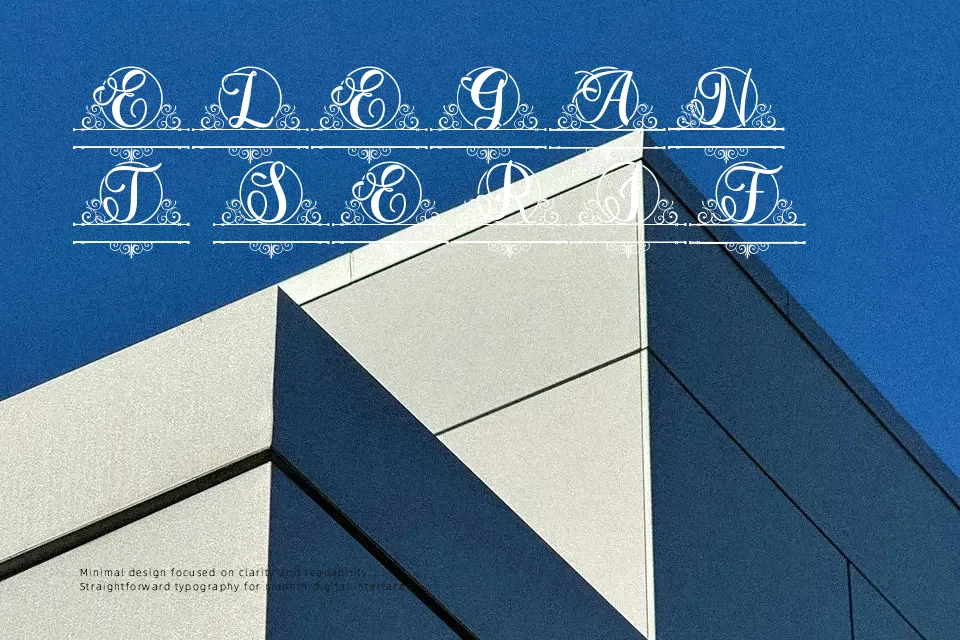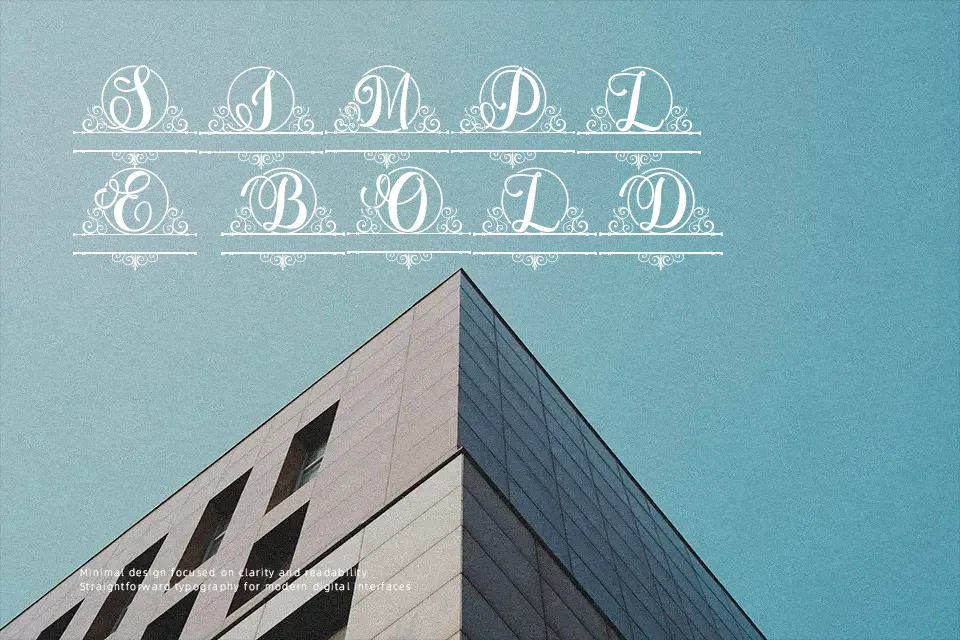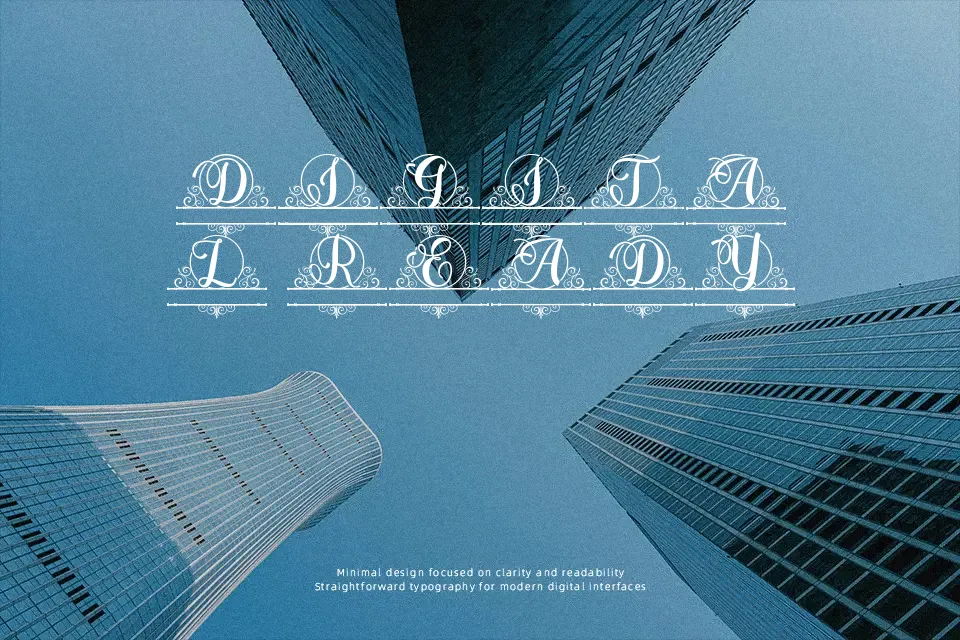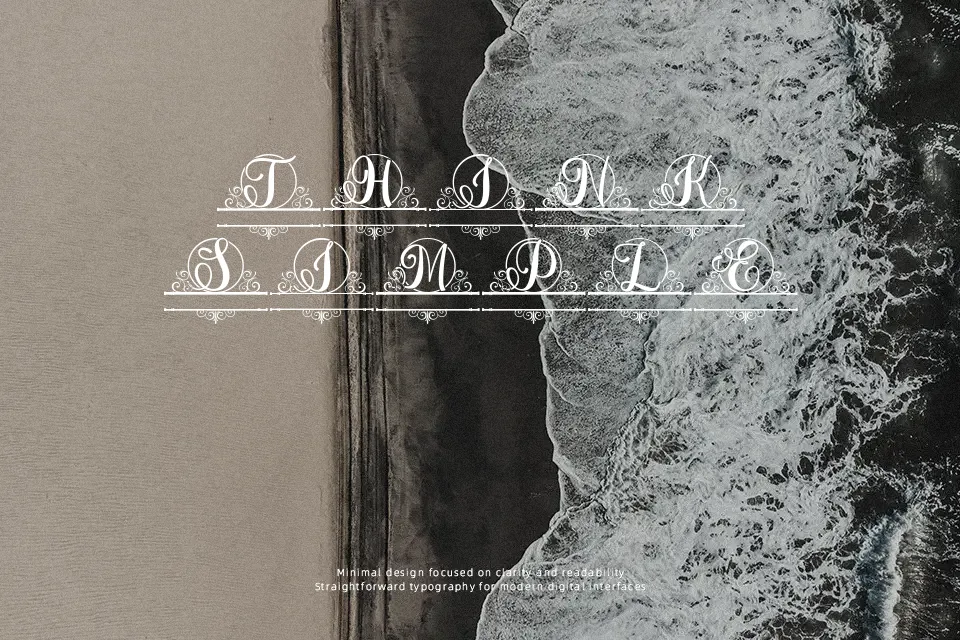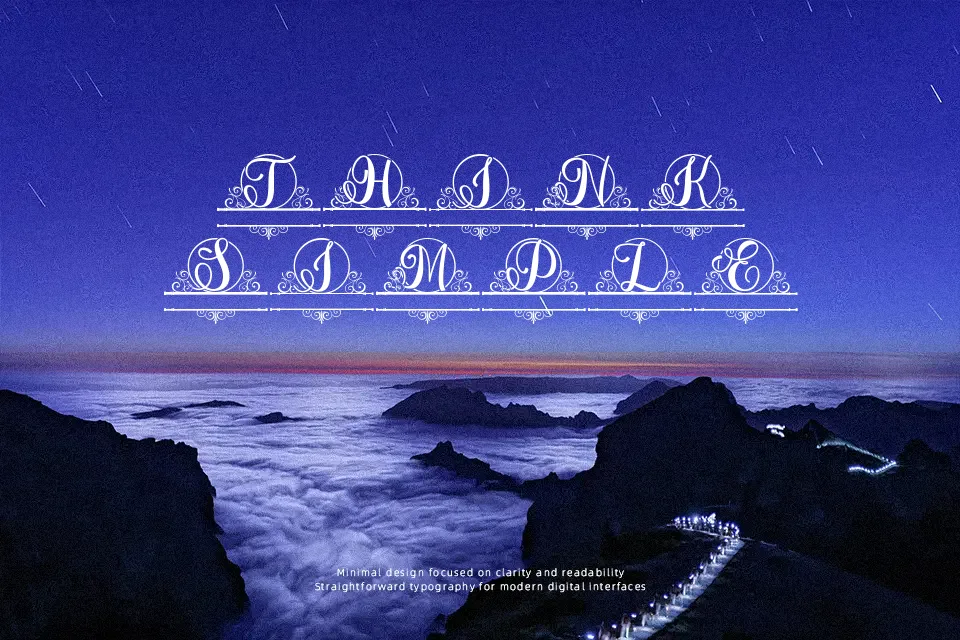
Berlin Monogram Font
Designed by zainstudio
At first glance, Berlin Monogram reads as a showcase of tight, interlocking capital structures — strokes that overlap and frame each other with deliberate symmetry. The contrast between thick and thin lines gives it a classical engraved quality, somewhere between vintage crest lettering and formal stationery ornaments. It works particularly well when used at large display sizes, such as monogram initials on wedding invitations, luxury gift packaging labels, or personal brand marks. That said, the density of the interlocking forms makes it nearly unreadable at small sizes, and the ornate complexity limits it to single letters or short initials rather than full words. For anyone needing decorative initials with a formal, heritage-leaning character — this delivers that with restraint.
Best For:- Wedding invitation monogram initials
– Luxury product packaging labels
– Personal stationery or seal design
– Boutique brand crest headers
Not Ideal For:- Full words or short phrases — legibility breaks down quickly
– Body text or any paragraph-level copy
– Digital UI elements requiring clarity at small sizes
– Corporate or tech branding contexts
Perfect for branding, business card, and invitation, with a classic and decorative style.